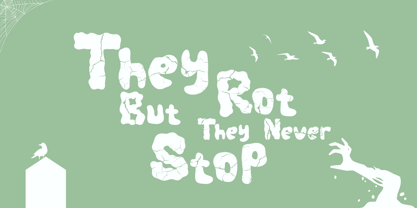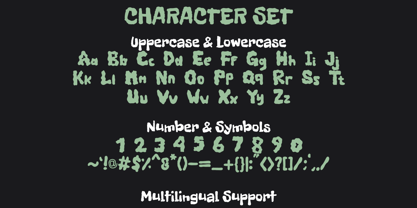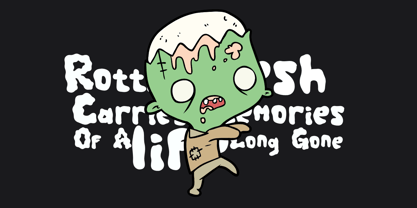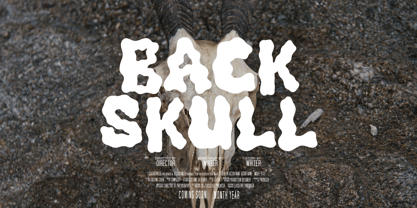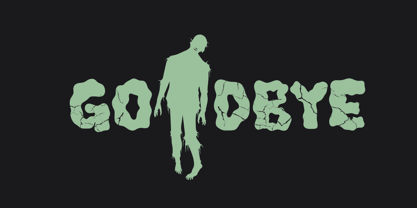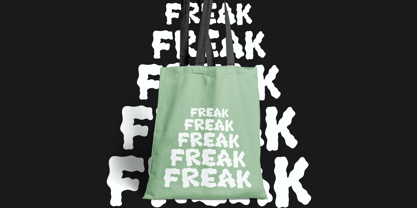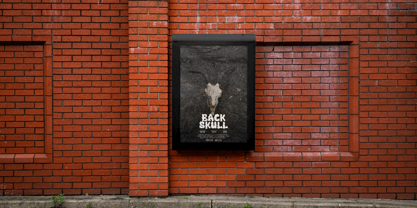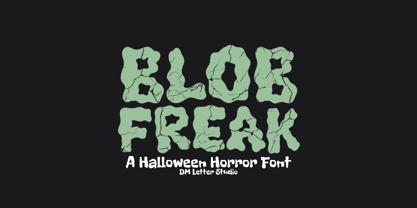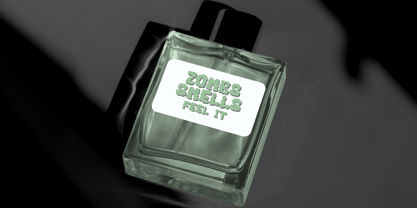
Blob Freak
by DM Studio
The Blob Freak Font Family was designed by Dimas Prasetyo and published by DM Studio. Blob Freak contains 1 styles. More about this family
Blob Freak is a bold and eerie Halloween horror font designed for maximum visual impact. Its cracked, oozy letterforms give your designs a spine-chilling personality—perfect for modern logo design, food and beverage branding, or elegant yet spooky signage.
With its luxury bold weight and unique texture, Blob Freak works seamlessly for high-contrast logo applications, haunted menu designs, and standout product packaging. Whether you’re branding a Halloween-themed café, crafting creepy event posters, or designing modern horror merch, this typeface delivers the perfect mix of terror and sophistication.
Its elegant horror aesthetic ensures your message looks premium while still packing a fright.
💡 Perfect For:
• Luxury Halloween Logos – High-end branding with a scary twist
• Modern Food Packaging – Perfect for themed snacks, drinks, or seasonal menus
• Elegant Horror Invitations – Weddings, parties, or events with a dark theme
• Luxury Bold Headlines – Eye-catching and creepy for marketing
• Seasonal Signage – From haunted house billboards to upscale shop displays
🧩 Font Features:
• Cracked Horror-Inspired Letterforms
• Bold Display Typeface
• Uppercase Alphabet, Numbers & Punctuation
• Perfect for Print, Digital, and Large-Scale Signage
Blob Freak isn’t just a Halloween font—it’s a luxury bold display typeface for designers who want to blend modern branding elegance with the raw creepiness of horror design.
Designers: Dimas Prasetyo
Current Foundry: DM Studio